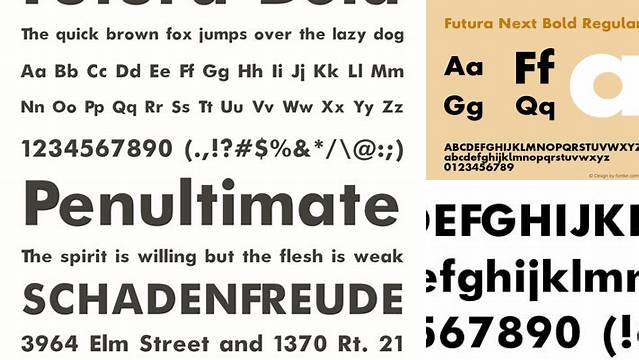
Futura Next Bold Font: Free Download & Design Guide
Futura Next Bold Font: Free Download and Guide for Designers
Futura Next Bold Font is a popular choice in the design world. This comprehensive guide will walk you through everything you need to know about the Futura Next Bold font, from where to get it for free to how to use it effectively in your design projects. Whether you're a seasoned graphic designer or just starting, understanding this typeface can significantly improve your work. We will explore its characteristics, history, and practical applications. So, let's dive in and unlock the potential of this versatile font!
What is Futura Next Bold?
Futura Next Bold is a geometric sans-serif typeface. Originally designed by Paul Renner in 1927, it is a modern adaptation and extension of the original Futura font family. The "Next" in its name signifies that it is an updated version, featuring a broader character set and improved readability. It's known for its clean lines, simple shapes, and overall modern aesthetic. Futura Next Bold is a bolder weight within the Futura Next family, which makes it ideal for headlines, titles, and any text that needs to grab immediate attention. Its clarity and legibility make it suitable for both print and digital media. The font’s geometric forms give it a contemporary feel that makes it perfect for various applications. It is widely used in logos, branding, and editorial design, and its enduring popularity is a testament to its timeless design. Designers frequently choose Futura Next Bold to communicate a sense of professionalism, sophistication, and modernity. The font is a reliable choice for creating a lasting impression. The versatility of the font makes it applicable across various design projects. It's not just a font; it's a statement, capable of elevating any design to a new level of visual impact. The font's simple design is often seen as a sign of elegance. Whether you're creating a website, designing a poster, or developing a brand identity, Futura Next Bold can be a powerful tool in your creative arsenal. The consistent design has allowed it to remain popular for many years. The font's geometric shapes are appealing and easy to read. The bold version of the font is particularly well-suited for headings. When used correctly, Futura Next Bold can dramatically improve the overall appearance of your project. It's a must-have for any designer. The font can be easily integrated into any project. This font is all about precision and clarity, offering a clean and balanced look. Using Futura Next Bold can make a big difference in the overall quality of the design. Designers continue to appreciate the font's usability and elegant style. The ability of the font to adapt to different design types makes it an invaluable asset to designers worldwide. The font's bold character makes it stand out and capture the viewer’s attention immediately.
Best Practices for Using Futura Next Bold in Design
Using Futura Next Bold effectively is crucial for achieving the desired visual impact. Here are some best practices:
- Headlines and Titles: The bold weight of Futura Next is perfect for headlines, titles, and subheadings. Its strong presence immediately captures the viewer's attention.
- Branding: Use Futura Next Bold in your brand identity to convey a sense of professionalism, modernity, and trustworthiness. It works well for logos, corporate communications, and marketing materials.
- Contrast: Pair Futura Next Bold with a lighter weight of Futura or another complementary font to create visual contrast. This helps to differentiate elements on the page and improve readability.
- Spacing: Pay attention to letter spacing (tracking) and line spacing (leading). Adjusting these settings can significantly affect the readability and aesthetics of your text. Ensure that there is enough space around each letter and line to prevent the text from appearing cramped or difficult to read. A little extra space can make a big difference.
- Color: Experiment with different colors to see how Futura Next Bold looks. It pairs well with both light and dark backgrounds, providing flexibility in your design choices.
- Test and Iterate: Always test your font pairings across different design elements and make adjustments as needed. This allows you to fine-tune the combinations for optimal impact.
Futura Next Bold is a fantastic font for various design projects, offering a balance of functionality and aesthetics. By understanding its characteristics, knowing where to download it, and applying best practices, you can create visually stunning designs. Remember to always check the licensing and usage rights before using any font, and enjoy the design process!